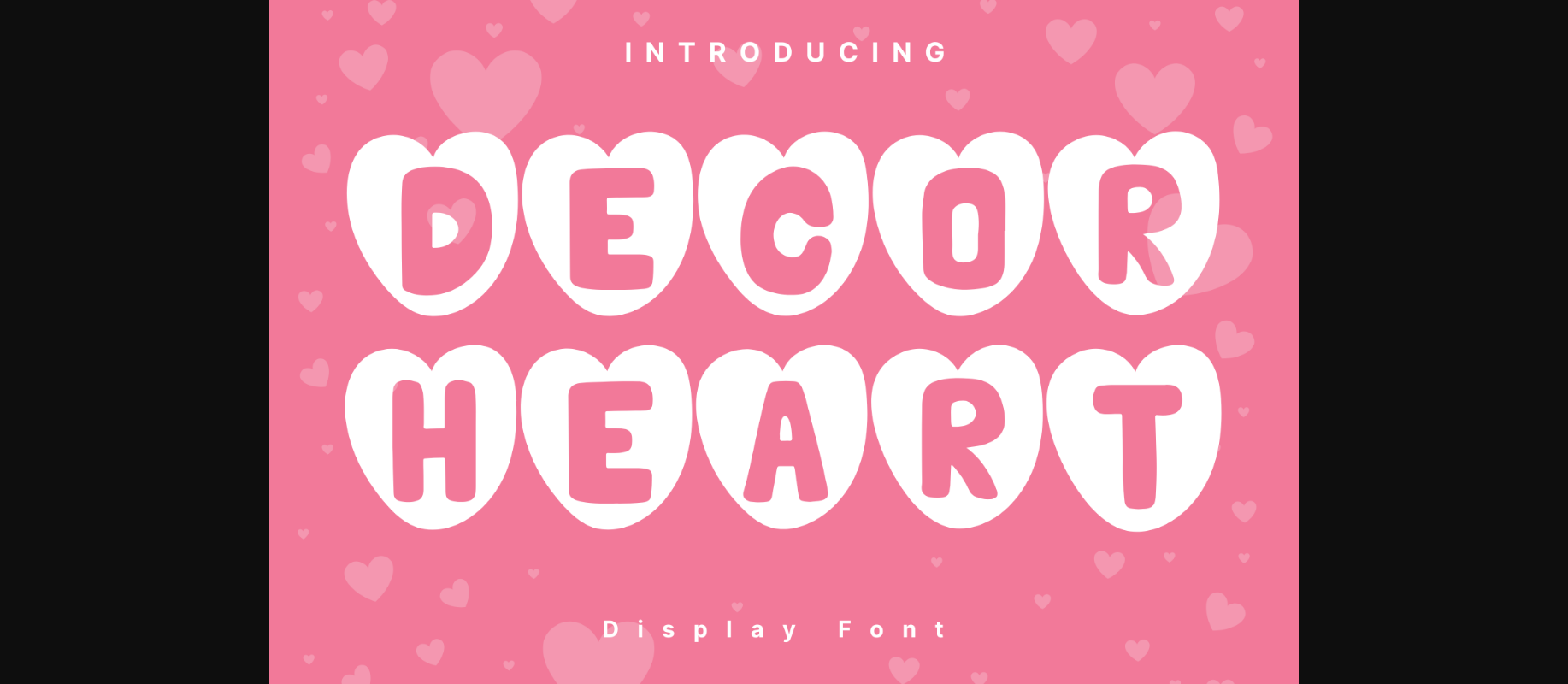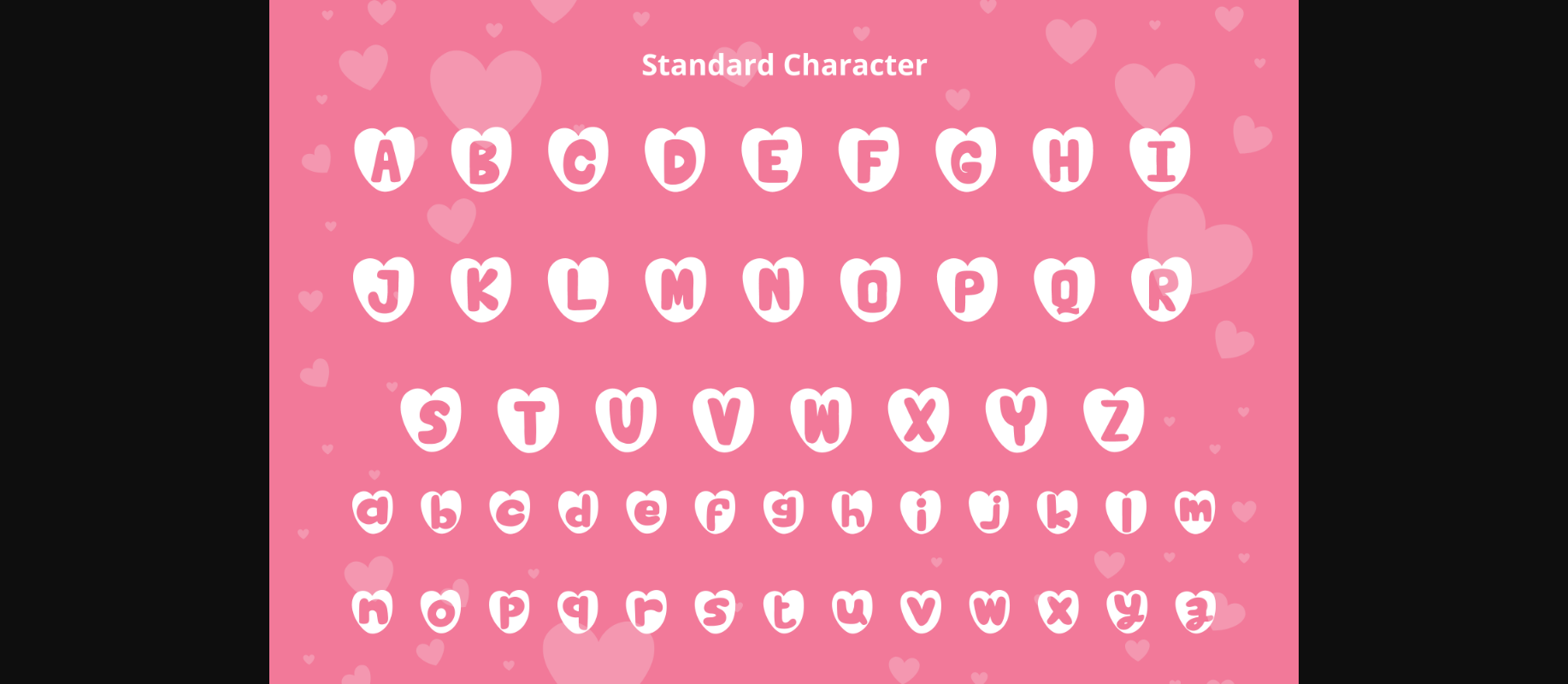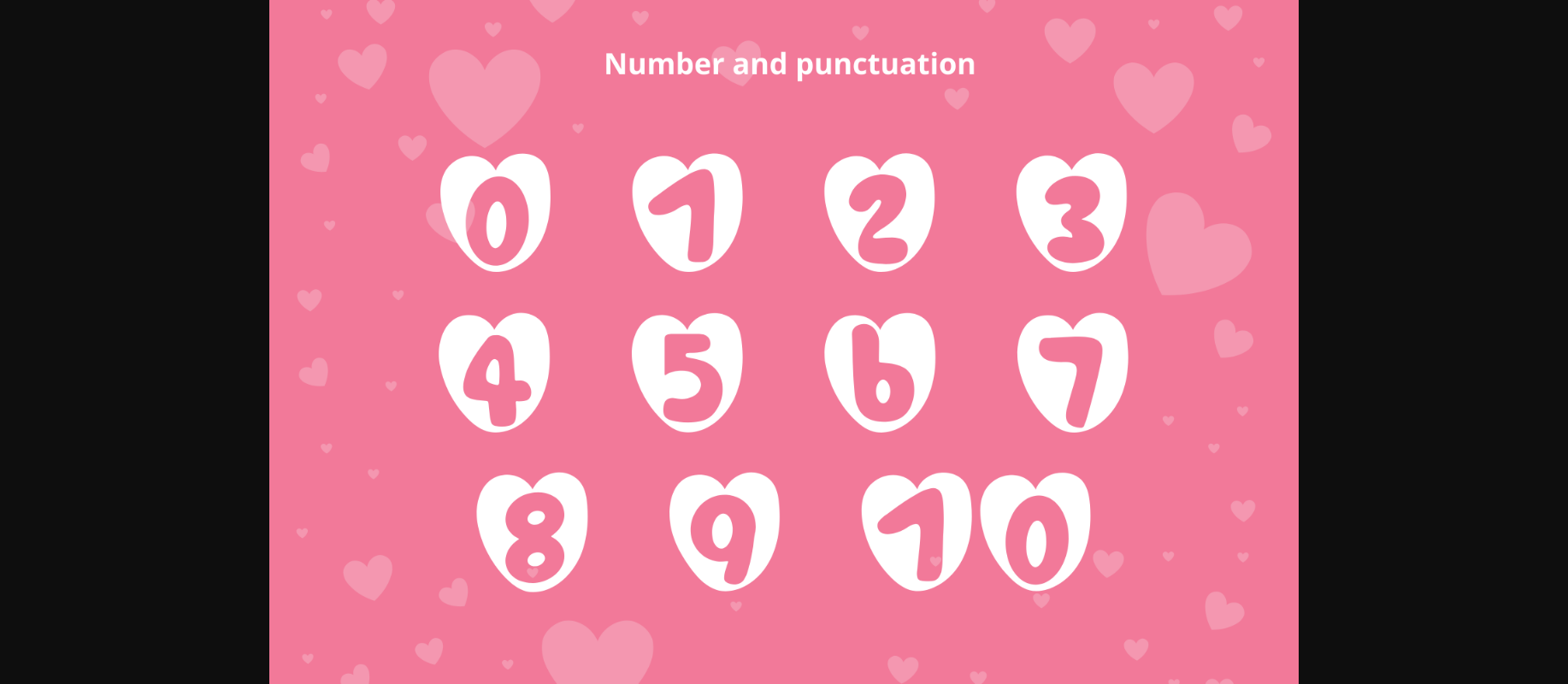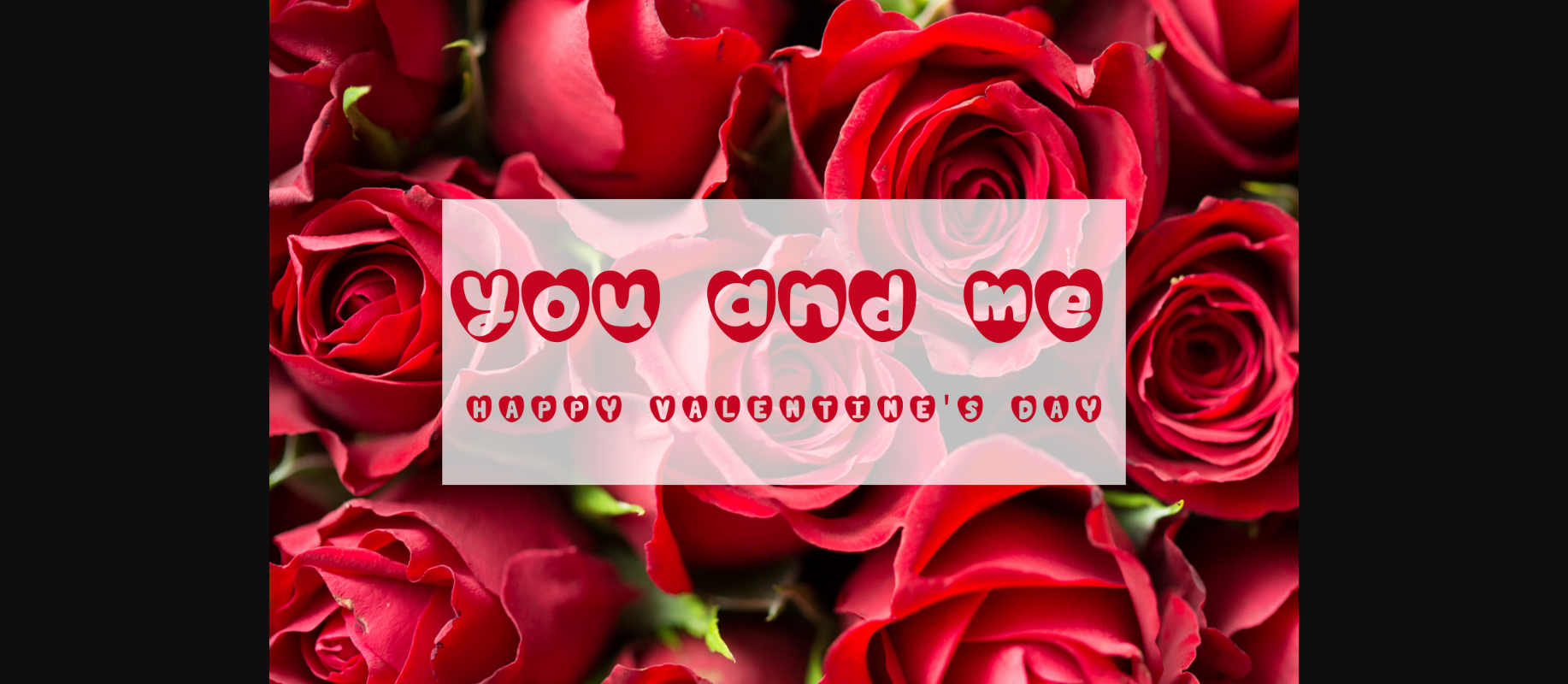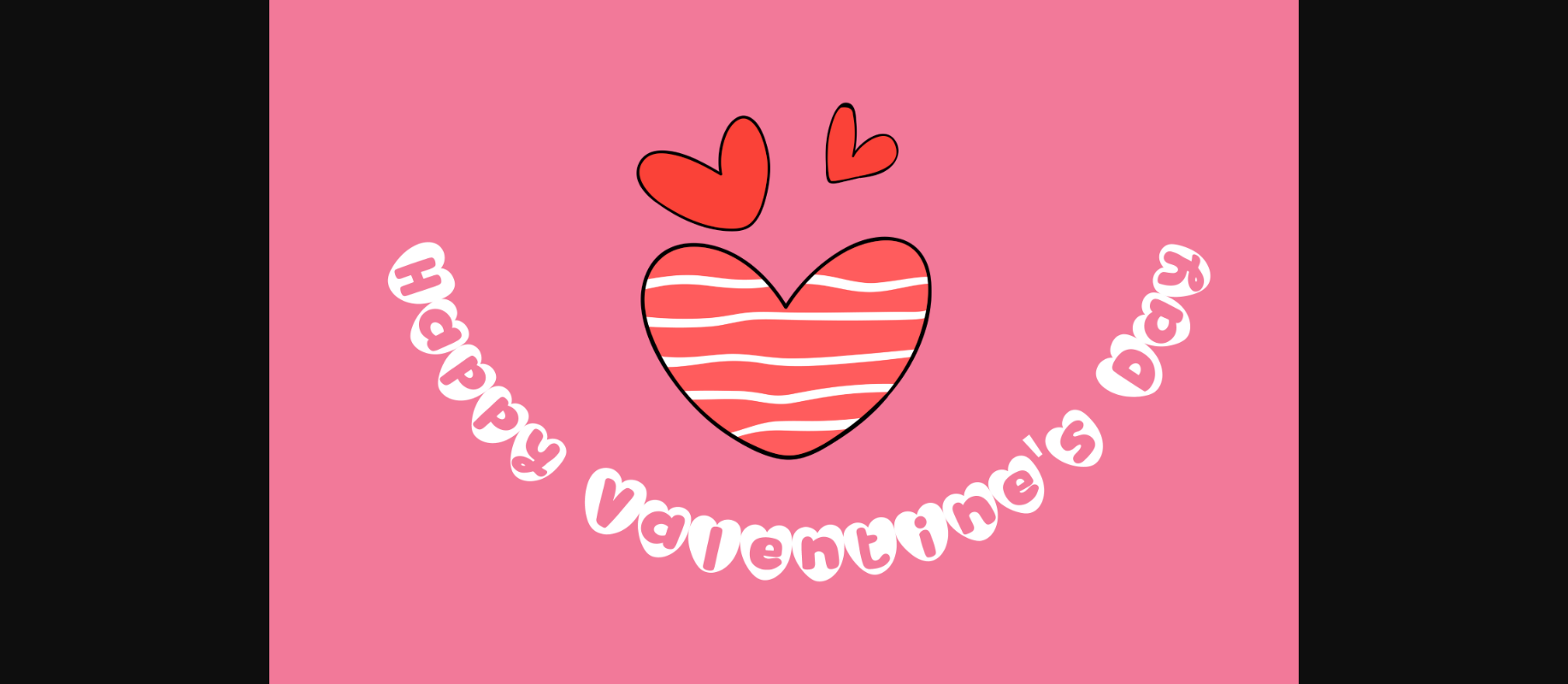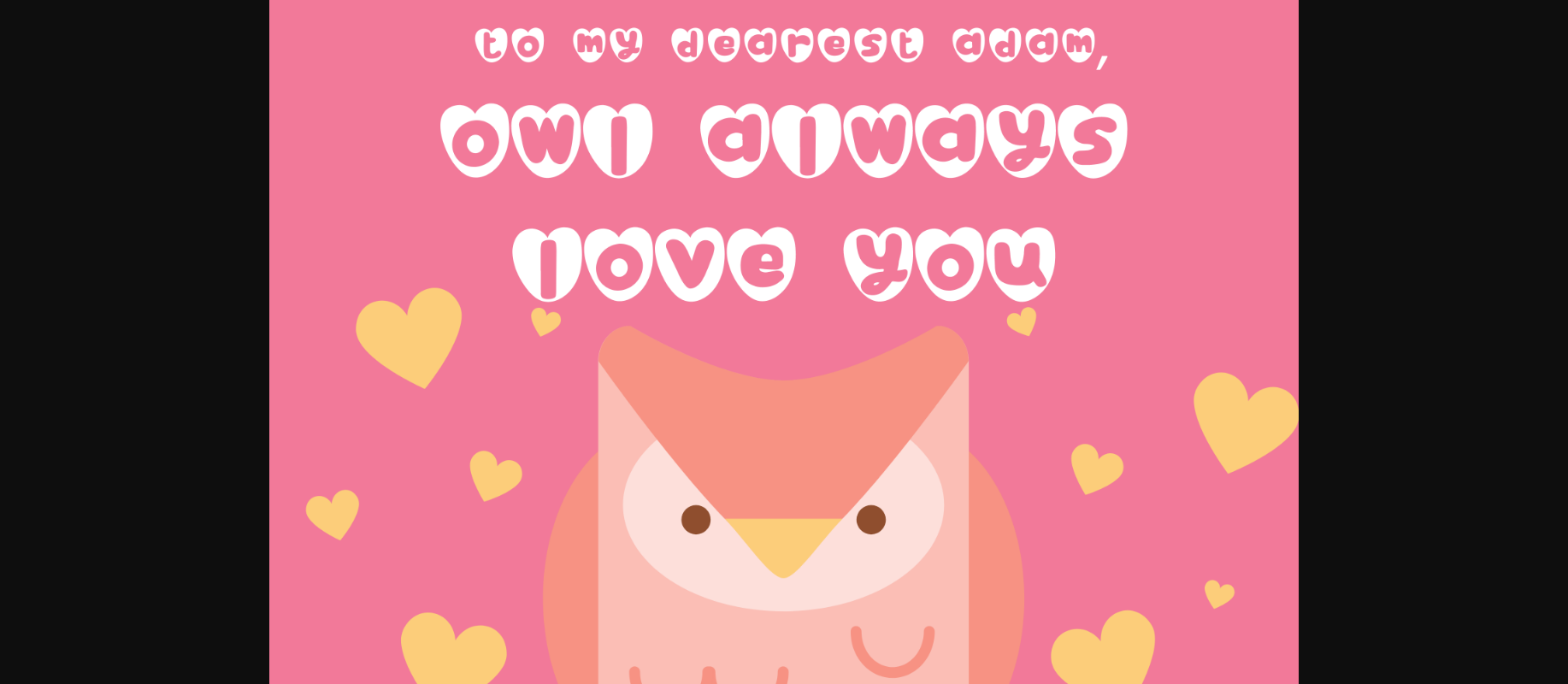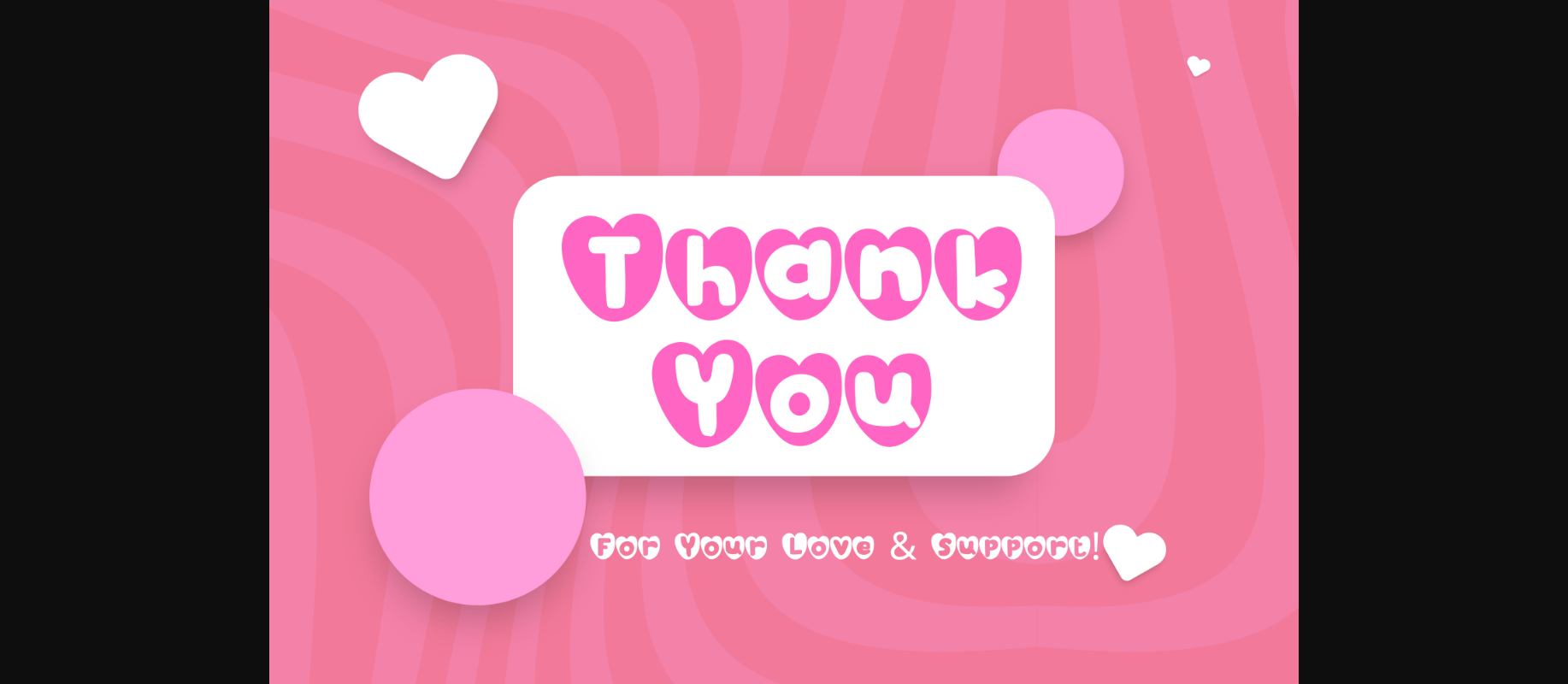
Decor Heart Font
About Decor Heart Font
Decor Heart is a whimsical and adorable decorative font. It can easily be matched to an incredibly large set of projects, so add it to your creative ideas and notice how it makes them stand out!